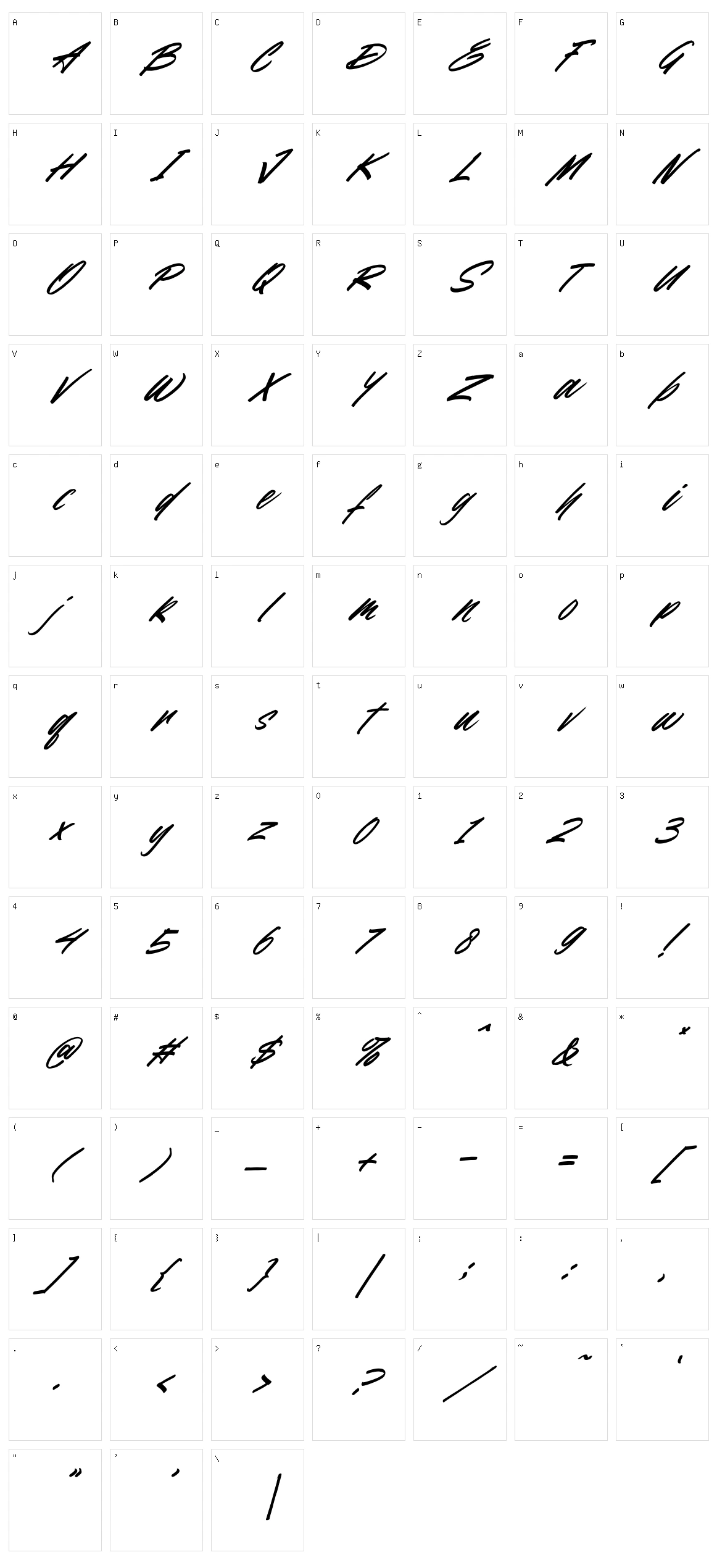
The free font Obsurd is carefully designed by Kong Font, showcasing a thoughtful balance of creativity and usability and falls under the Script font style. When you download the ZIP file, it contains only 1288.2 KB of font files, making it lightweight and quick to download. Please review the license details below to understand permitted usage and distribution rights. If license information is not available, we recommend using this font for personal projects only or contacting the author directly for commercial usage permissions.